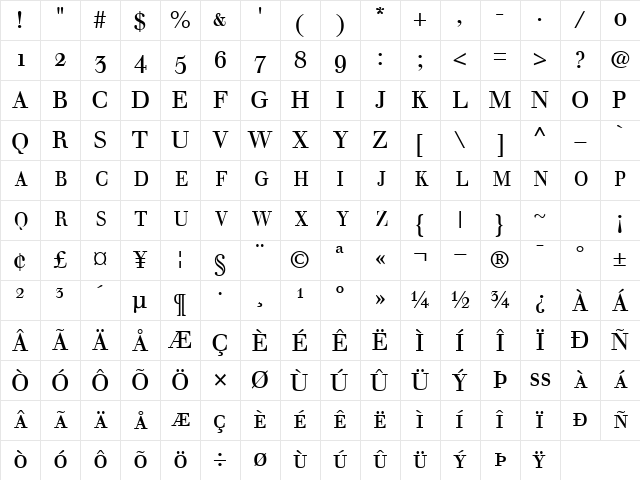
WalbaumOSSCapSSK Regular
Design Context for WalbaumOSSCapSSK
WalbaumOSSCapSSK is a composed and adaptable typeface that performs quietly and consistently across a wide range of design contexts.
Pro Tip: Use WalbaumOSSCapSSK in both headline and body roles to test its range before committing to a single application.